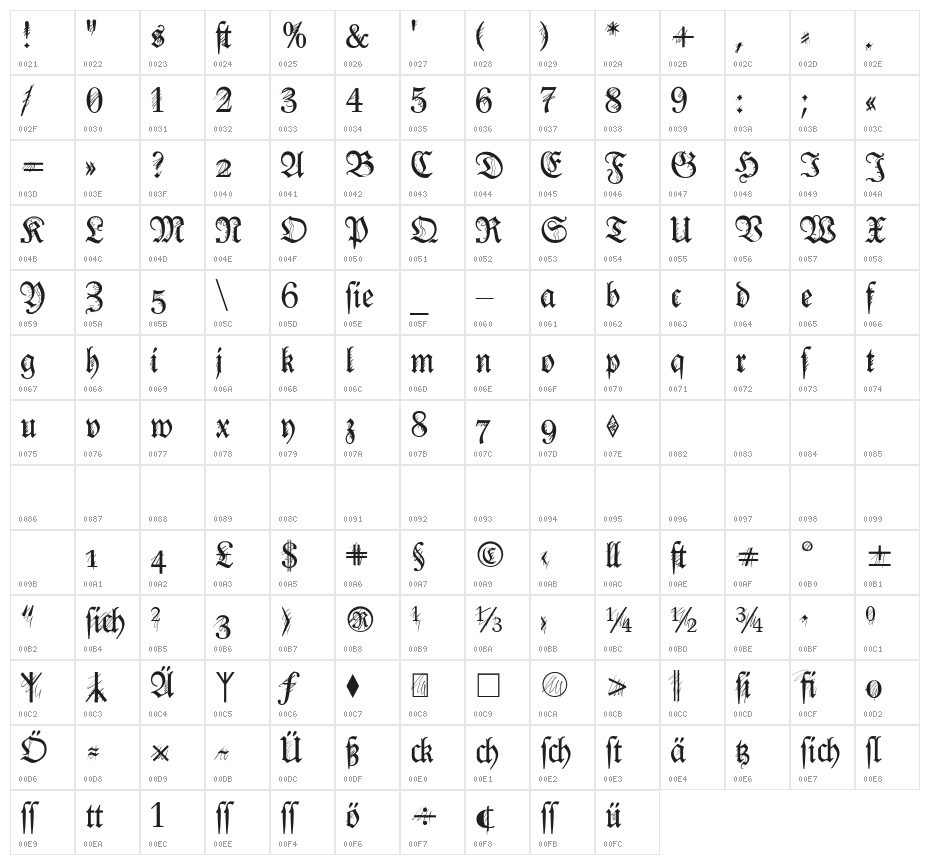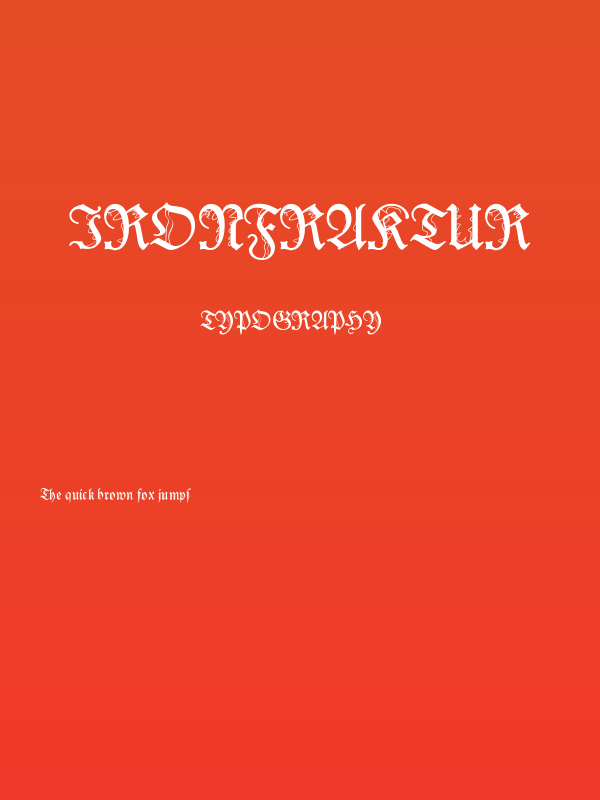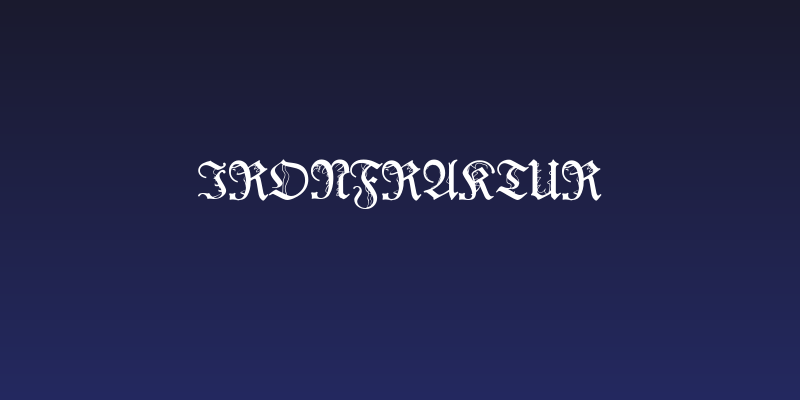
IronFraktur Font
IronFraktur Description
This font is a striking example of Blackletter style, characterized by its intricate and ornate letterforms. The uppercase letters feature elaborate flourishes and sharp angles, while the lowercase letters maintain a consistent gothic aesthetic with pointed edges and dramatic curves. The numerals are bold and maintain the same decorative style, ensuring a cohesive look across all characters. Special characters are equally detailed, adding to the font's overall complexity and historical feel. This font's design is reminiscent of medieval manuscripts and traditional calligraphy, making it ideal for projects that require a touch of elegance and historical depth.
| Proposed Projects | Ideal for historical documents, wedding invitations, book covers, and branding that requires a classic or medieval touch. |